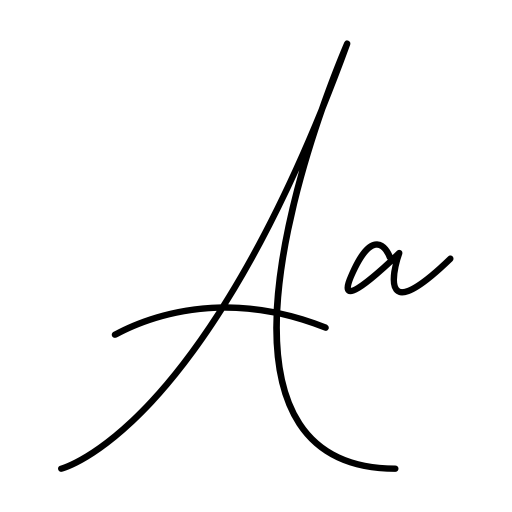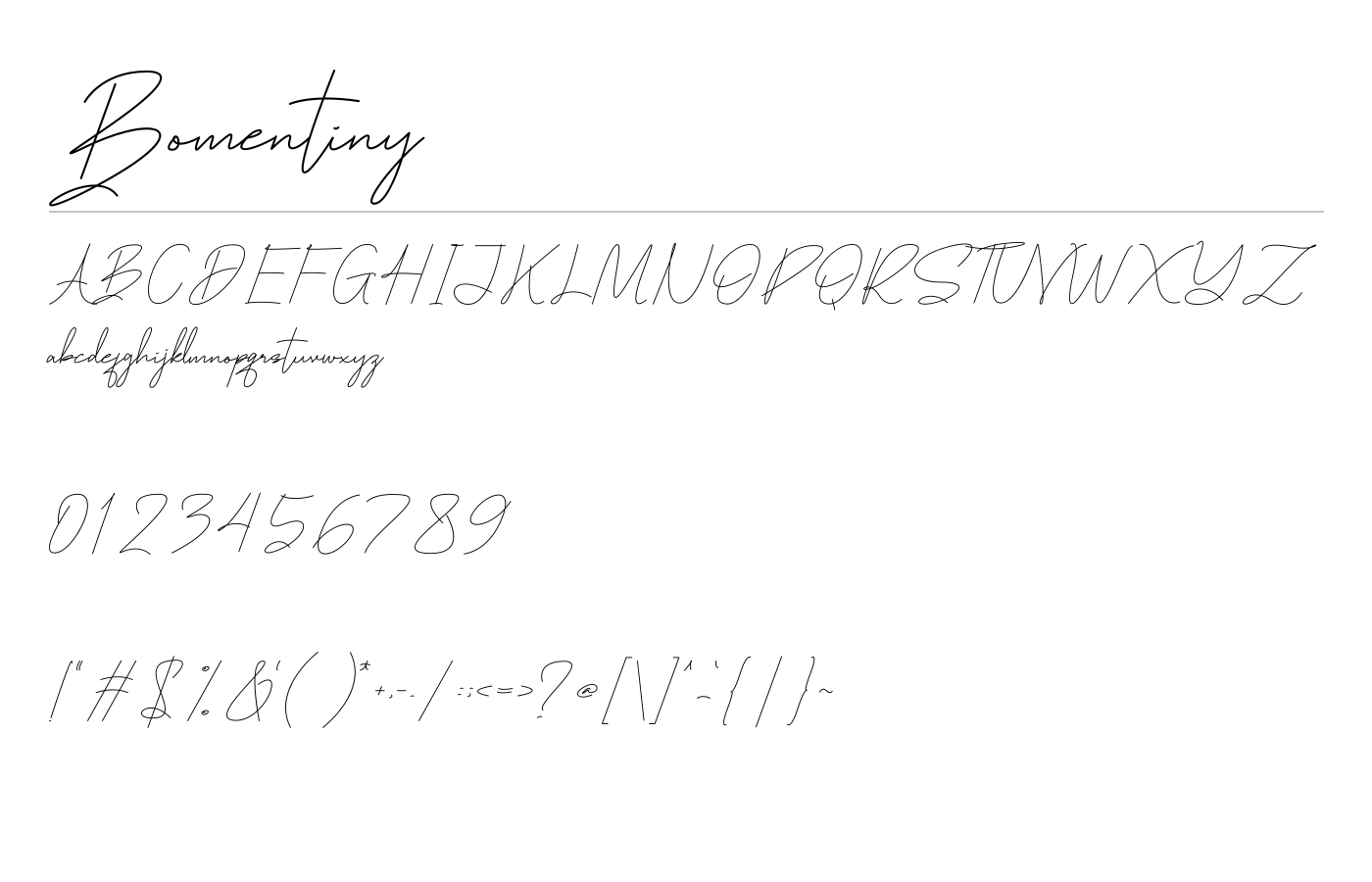
Bomentiny is a delicate, elegant script font with a modern handwritten style featuring thin, fluid strokes and a graceful flow. Its airy, light structure and stylish uppercase characters make it perfect for sophisticated branding, invitations, and fashion-related designs where a refined and personal touch is desired. The font’s subtle charm brings a sense of elegance and creativity ideal for headlines and decorative text.
Bomentiny Font